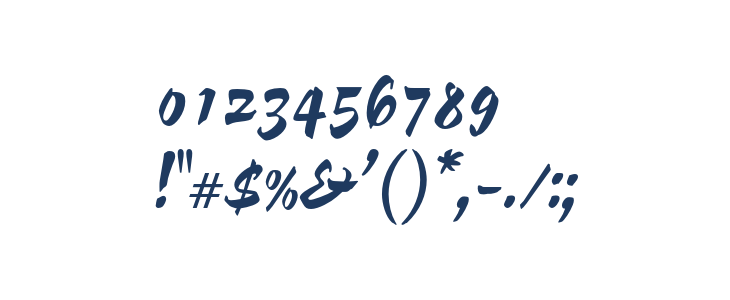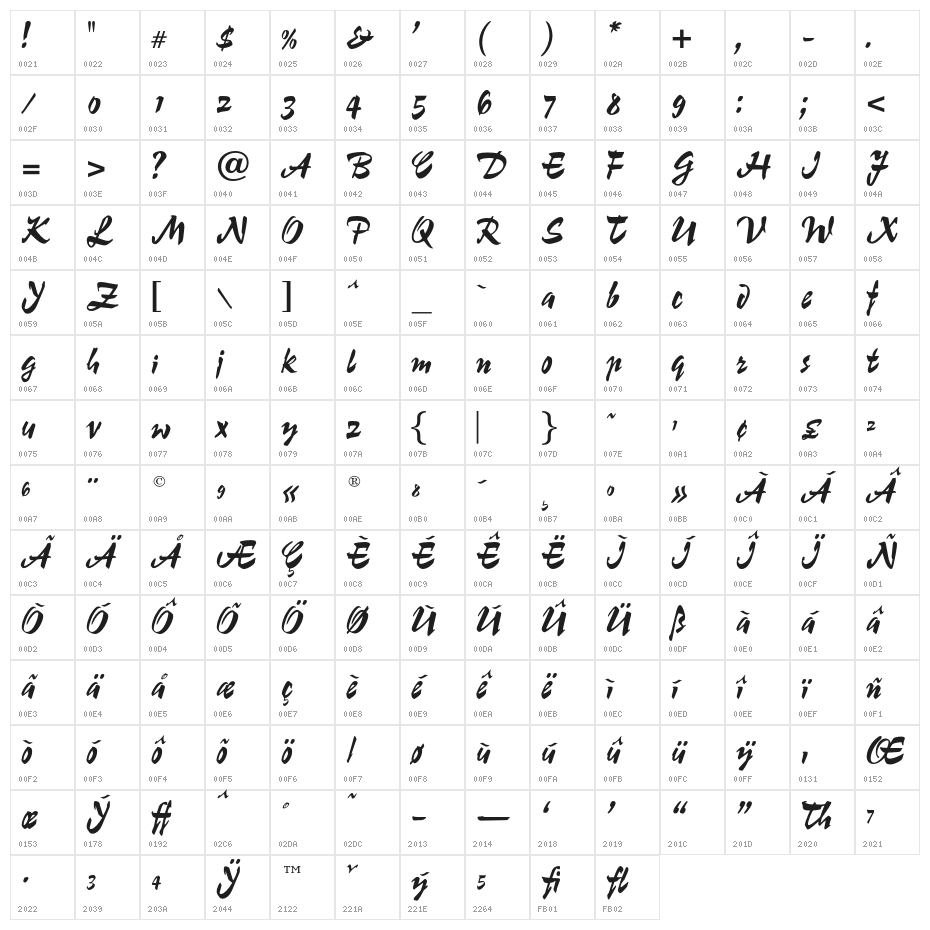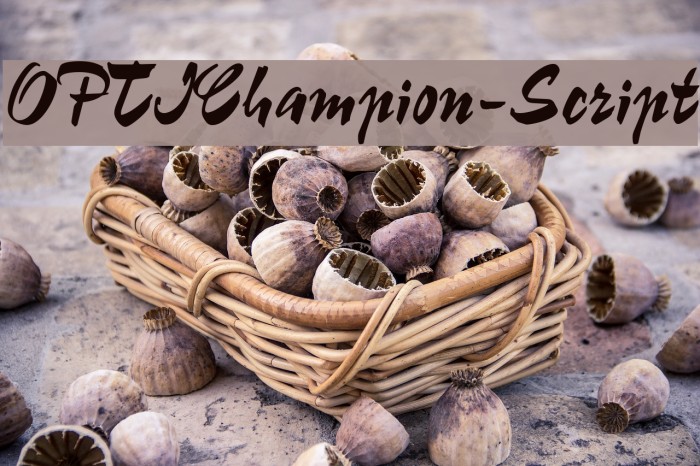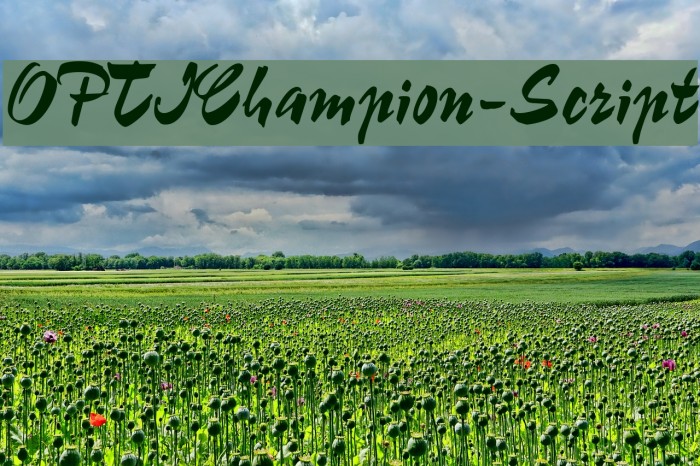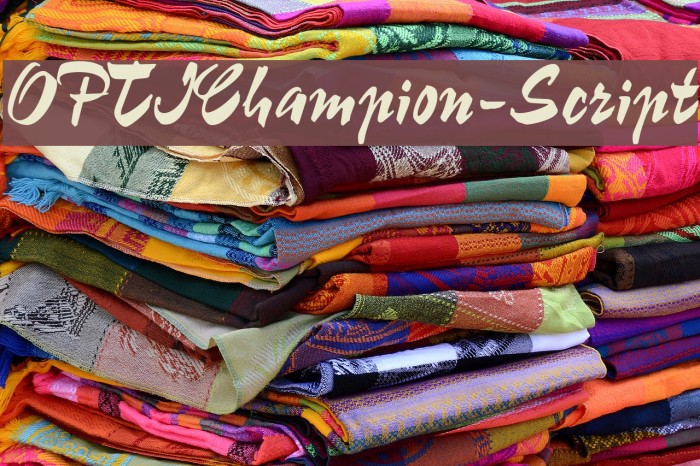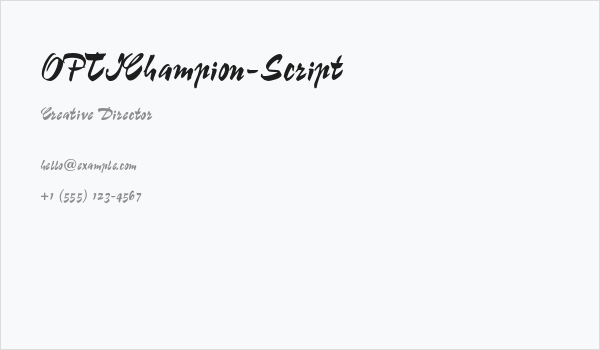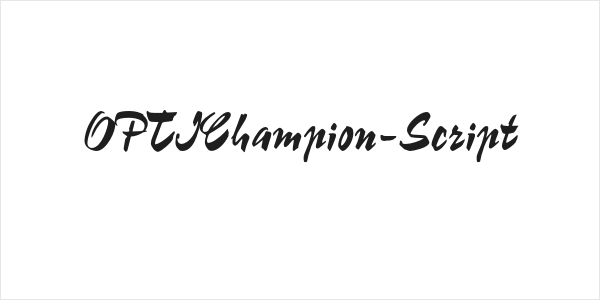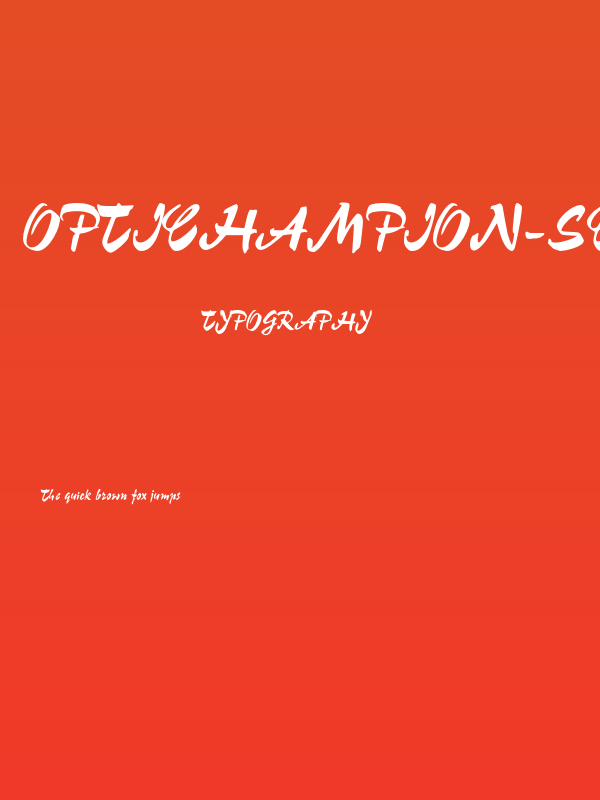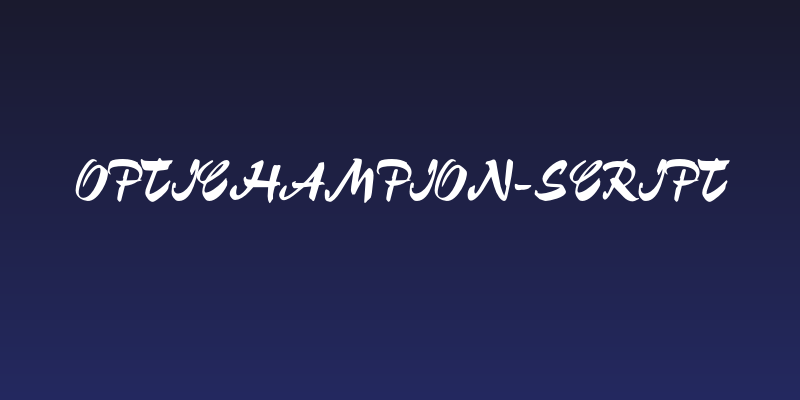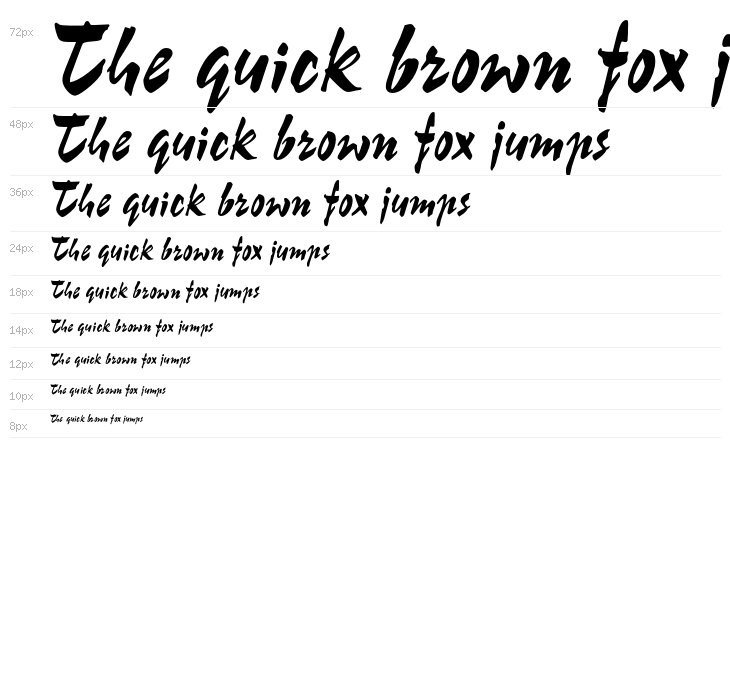
OPTIChampion-Script Font
OPTIChampion-Script Description
This font exudes a dynamic and energetic feel, characterized by its fluid and cursive script style. The letters are connected in a way that mimics natural handwriting, giving it a personal and artistic touch. The uppercase letters are bold and slightly slanted, while the lowercase letters maintain a consistent flow, enhancing readability. The numerals and special characters are crafted with the same attention to detail, ensuring uniformity across the typeface. The strokes vary in thickness, adding a sense of movement and vibrancy to the text. This font is ideal for projects that require a personal, handwritten aesthetic.
| Use Case | Logos, Invitations, Artistic projects |
| Proposed Projects | Ideal for wedding invitations, greeting cards, personal branding, and artistic projects. |